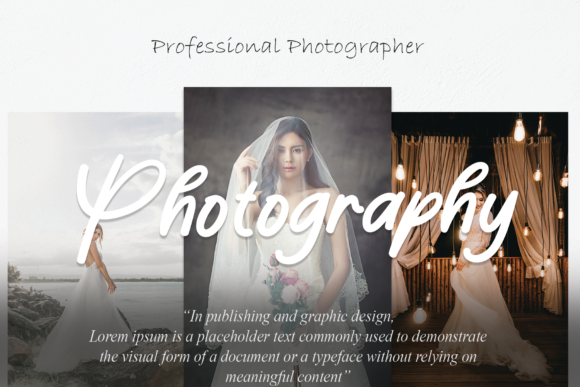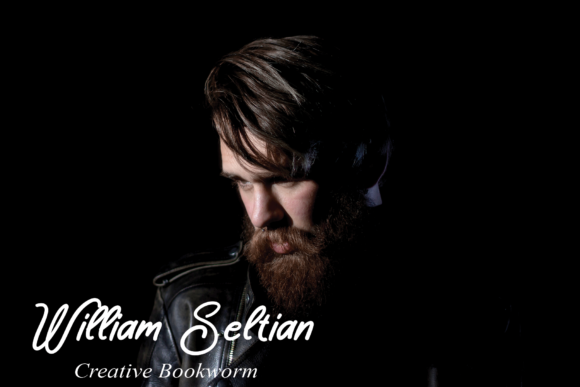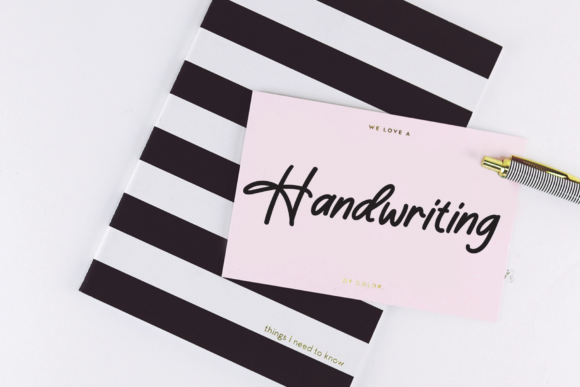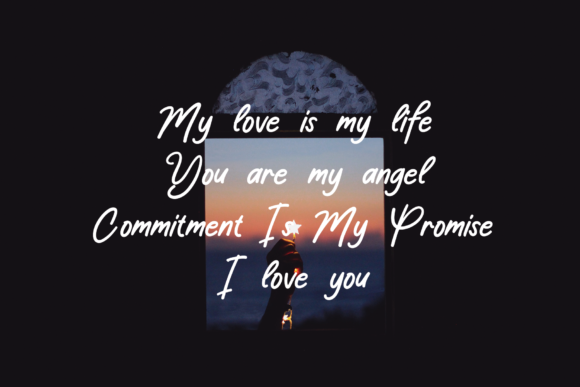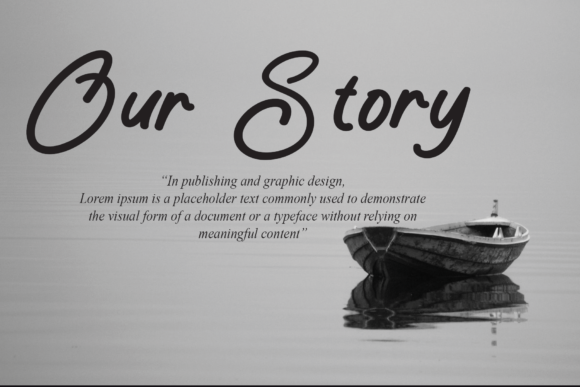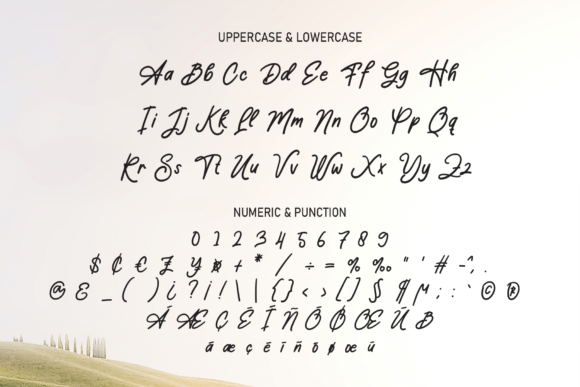
Introducing Amstelveen Font: Elevate Your Designs with Elegance
Are you on the hunt for a font that exudes elegance and sophistication? Look no further than Amstelveen Font, a beautiful, flowing handwritten font that is sure to capture your heart. With its incredibly distinct and timeless style, Amstelveen is the perfect addition to your favorite projects, allowing you to create spectacular designs that stand out from the crowd.
The Charm of Amstelveen Font
Amstelveen Font boasts an elegant touch that sets it apart from other fonts. Its flowing, handwritten design gives it a unique and sophisticated feel, making it ideal for a wide range of applications, from creative crafts to digital designs. Whether you’re working on a logo, a poster, or a website, Amstelveen Font is sure to bring a touch of class and refinement to your work.
Key Features of Amstelveen Font
- Flowing Handwritten Design: Amstelveen Font features a beautiful, flowing script that gives it a dynamic and elegant feel.
- Elegant Touch: The font’s elegant design makes it perfect for projects that require a sophisticated and refined look.
- Distinct and Timeless Style: Amstelveen Font has an incredibly distinct and timeless style that sets it apart from other fonts.
- Versatile: The font is versatile and can be used for a wide range of applications, from digital designs to creative crafts.
Why Choose Amstelveen Font?
So, why choose Amstelveen Font for your next project? Here are just a few reasons:
- Stand Out from the Crowd: With its unique and elegant design, Amstelveen Font is sure to make your project stand out from the crowd.
- Easy to Read: Despite its elegant design, Amstelveen Font is easy to read, making it perfect for body text and headings.
- Customizable: The font is highly customizable, allowing you to adjust the size, color, and style to suit your needs.
- Support for Multiple Languages: Amstelveen Font supports multiple languages, making it a great choice for international projects.
Design Ideas Using Amstelveen Font
Amstelveen Font is a versatile font that can be used for a wide range of design projects. Here are a few ideas to get you started:
- Logos: Use Amstelveen Font to create a unique and elegant logo for your business or brand.
- Posters: Create eye-catching posters using Amstelveen Font and add a touch of sophistication to your design.
- Wedding Invitations: Use Amstelveen Font to create beautiful and elegant wedding invitations.
- Websites: Add a touch of elegance to your website by using Amstelveen Font for your headings and body text.
In conclusion, Amstelveen Font is a beautiful, flowing handwritten font that is sure to elevate your designs. With its elegant touch, distinct and timeless style, and versatility, Amstelveen Font is the perfect addition to your favorite projects. Whether you’re a designer, crafter, or DIY enthusiast, Amstelveen Font is a great choice for any project that requires a touch of sophistication and elegance.